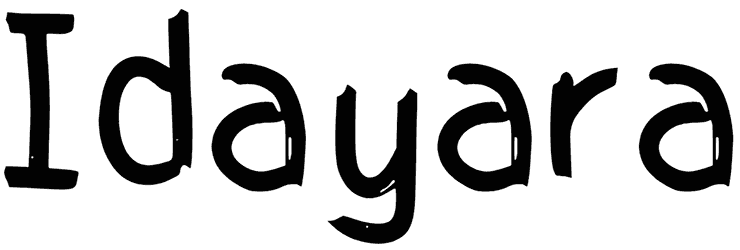
Idayara Font
Designed byAmru ID
Idayara would be a tempting option for any graphic designer who craves to turn all of their creative ideas, including movie posters, stickers, flyers, billboards, or packaging, into a piece of art. Aside from not supporting numbers, this script font can boost the efficiency of your artwork.